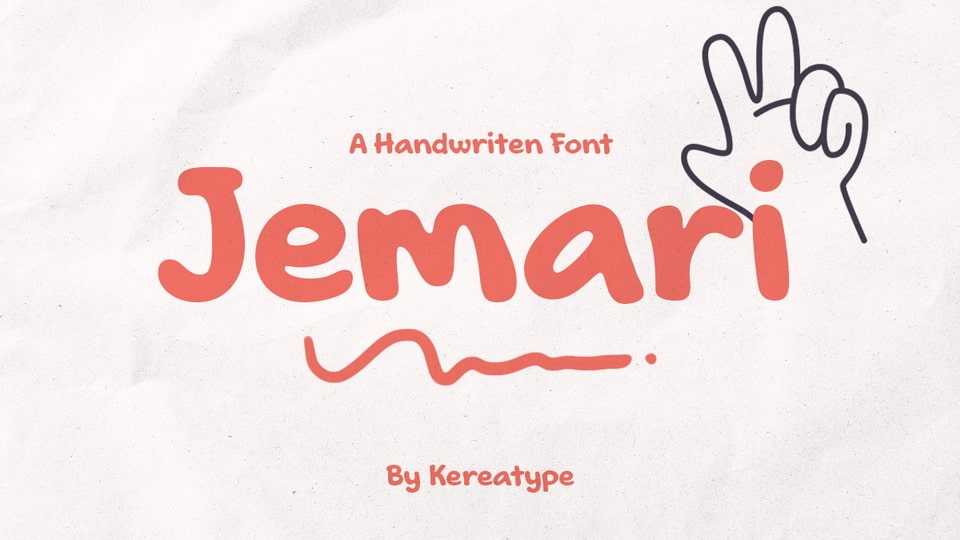
Download Jemari font, a fun and expressive handwritten typeface that brings warmth and personality to your designs with its smooth, rounded strokes and casual letterforms.
Designer: Kereatype Studio